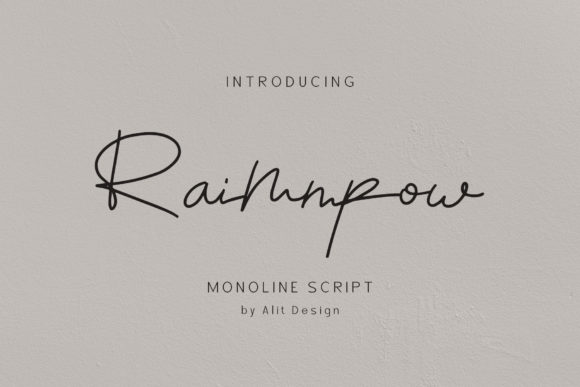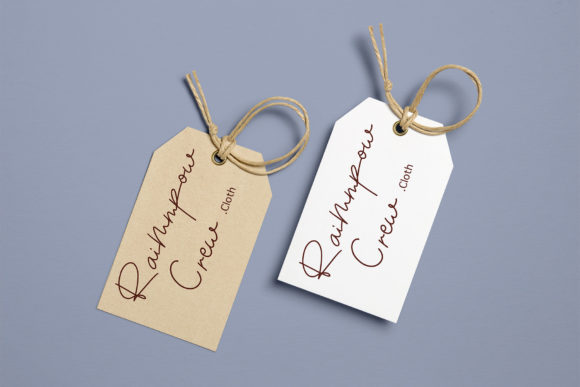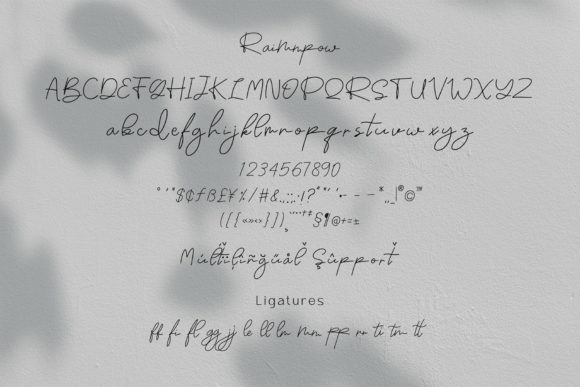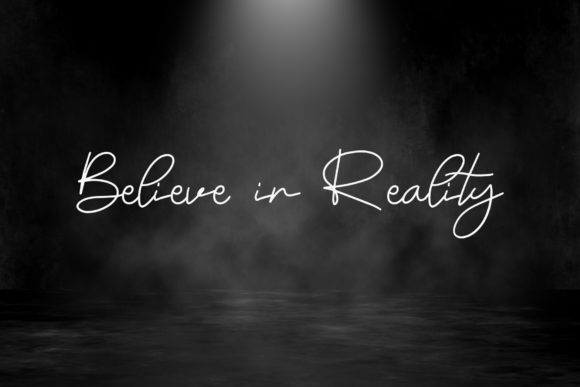
About Raimmpow Font
Raimmpow is an elegant, delicate and timeless handwritten font. It is the best choice for creating eye catching logos, branding and quotes. Every letter has a unique and beautiful touch, which will make your design come alive!